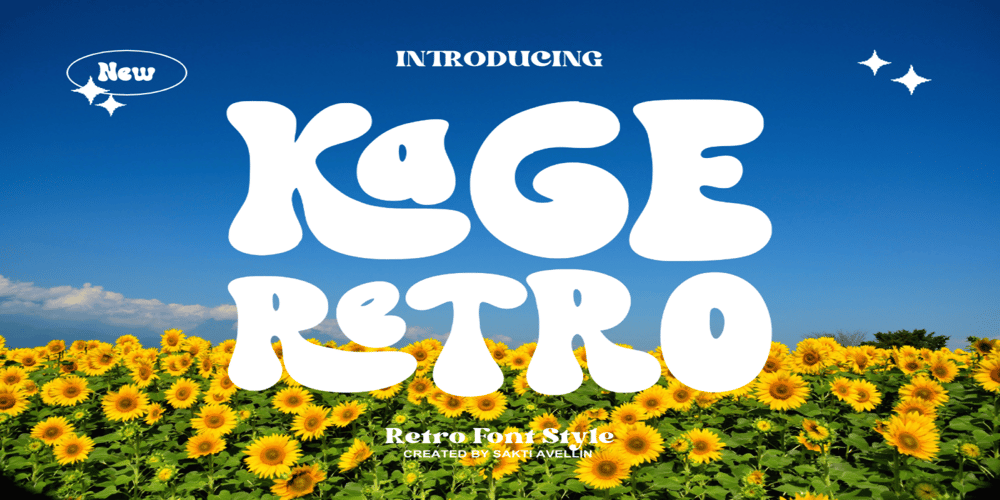
Kage Retro
Kage Retro font
Kage Retro Font Family was designed by Widi Antoro and published by Sakti Avellin. Kage Retro contains 1 styles and family package options. Kage Retro is a fun and retro font, it’s perfect for designs that need a playful, cheery accent. Kage Retro is suitable for book covers, posters, packaging, merchandise, logotypes, and many more!-standard glyph -Works on PC & Mac-Accessible in Adobe Illustrator, Adobe InDesign, it even works in Microsoft Word. PUA Encoded Characters – Fully accessible with no add-ons.